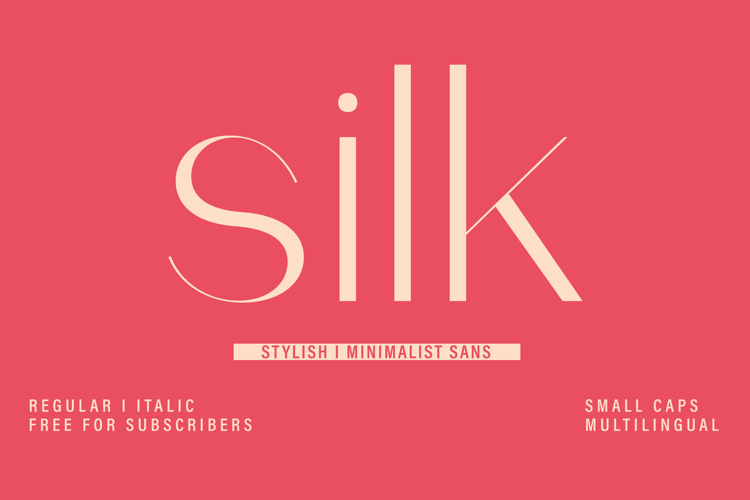
Silk Font
π¨ Font Name: Silk by Minimalist Art Studio
π¨ Font Description: Silk is a minimalist sans dingbat font with stylish small caps and multilingual supportβperfect for branding, editorial accents, and modern design systems.
β Complete Latin set + multilingual diacritics
β Alternates, stylistic sets & ligatures
β Numbers, small caps, and extended punctuation
β Bonus italics and family styles